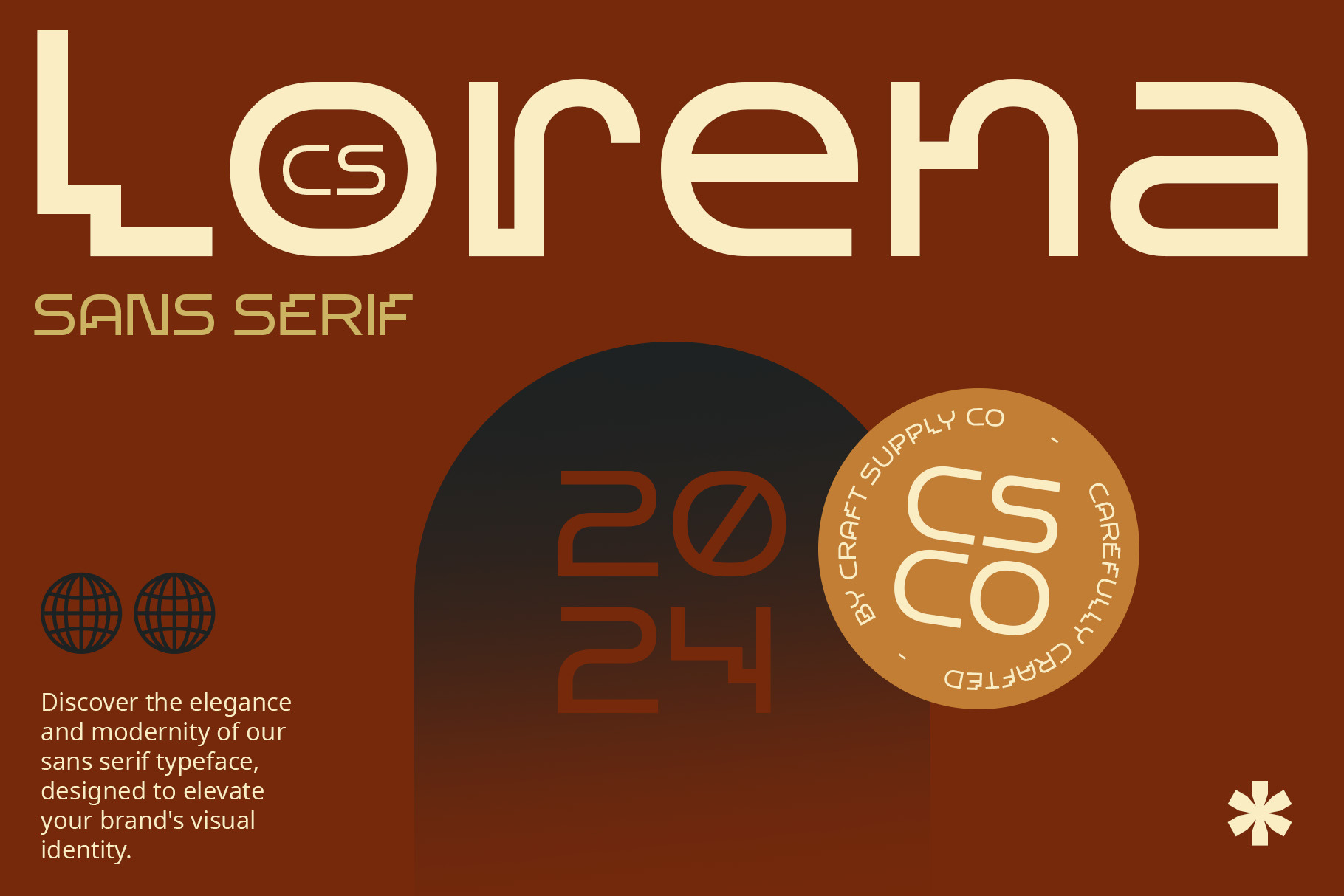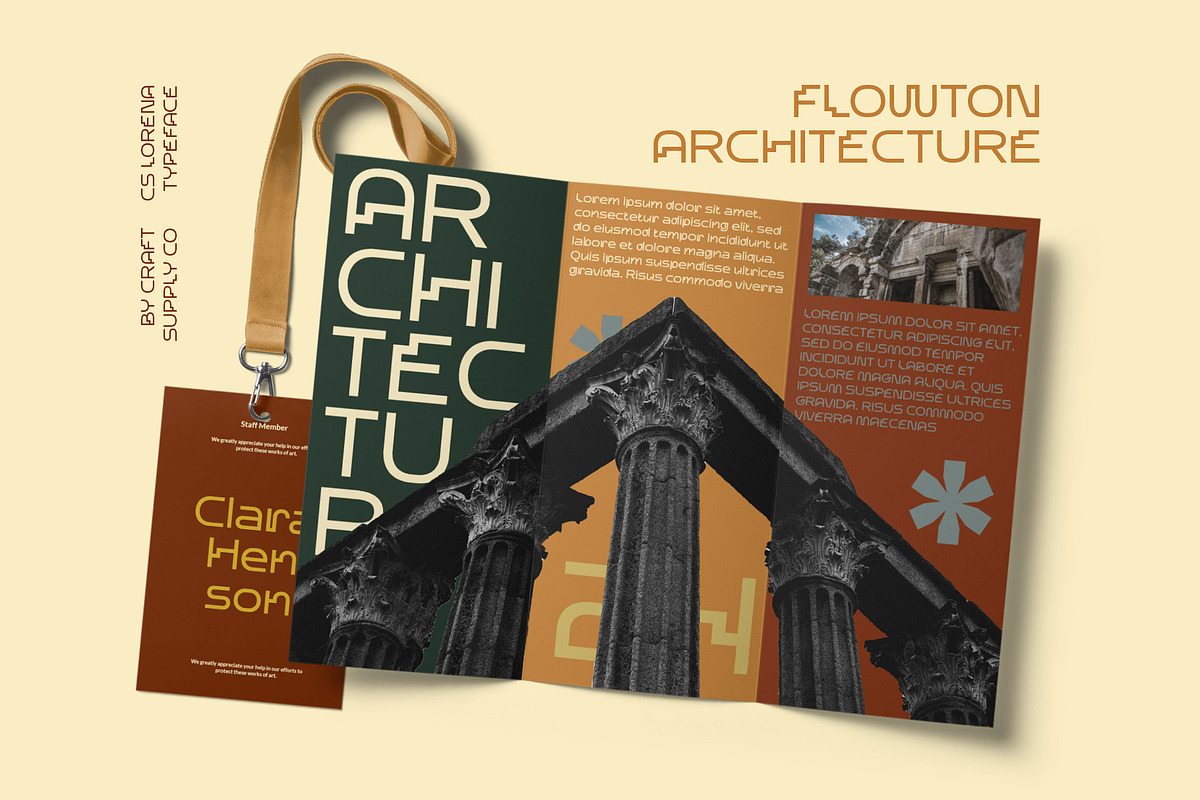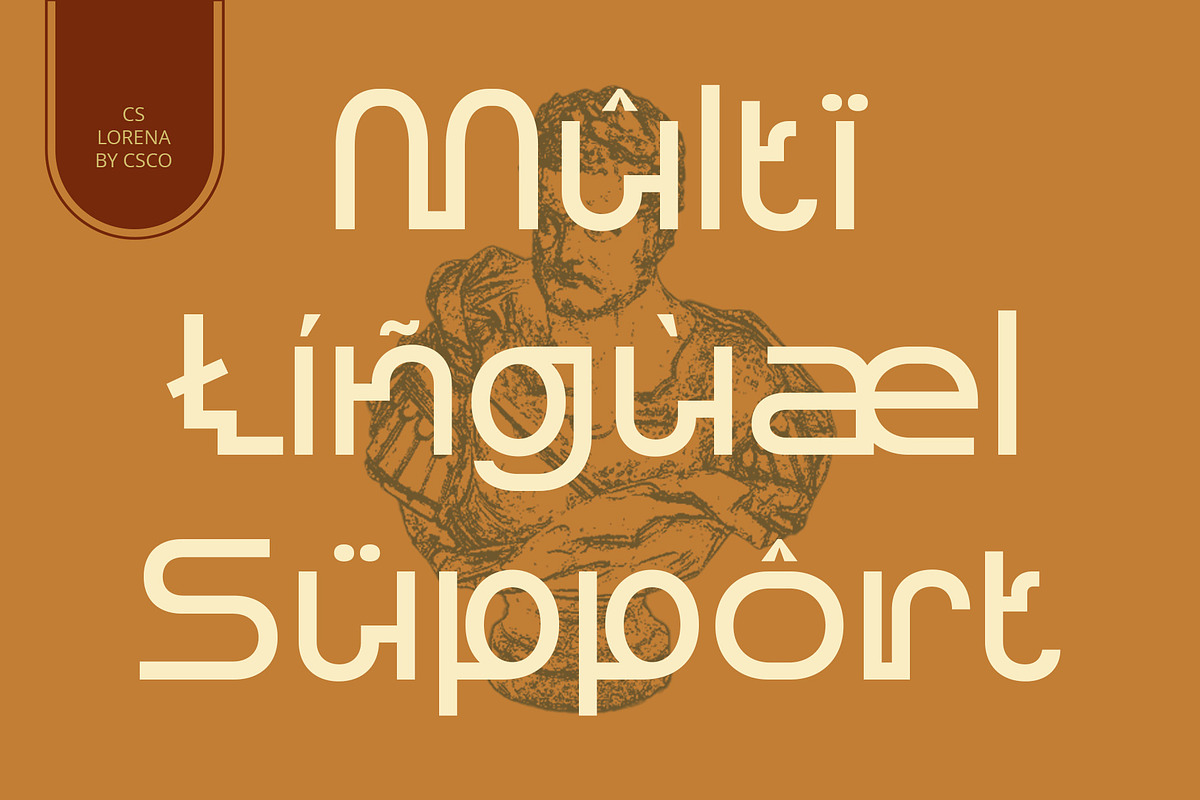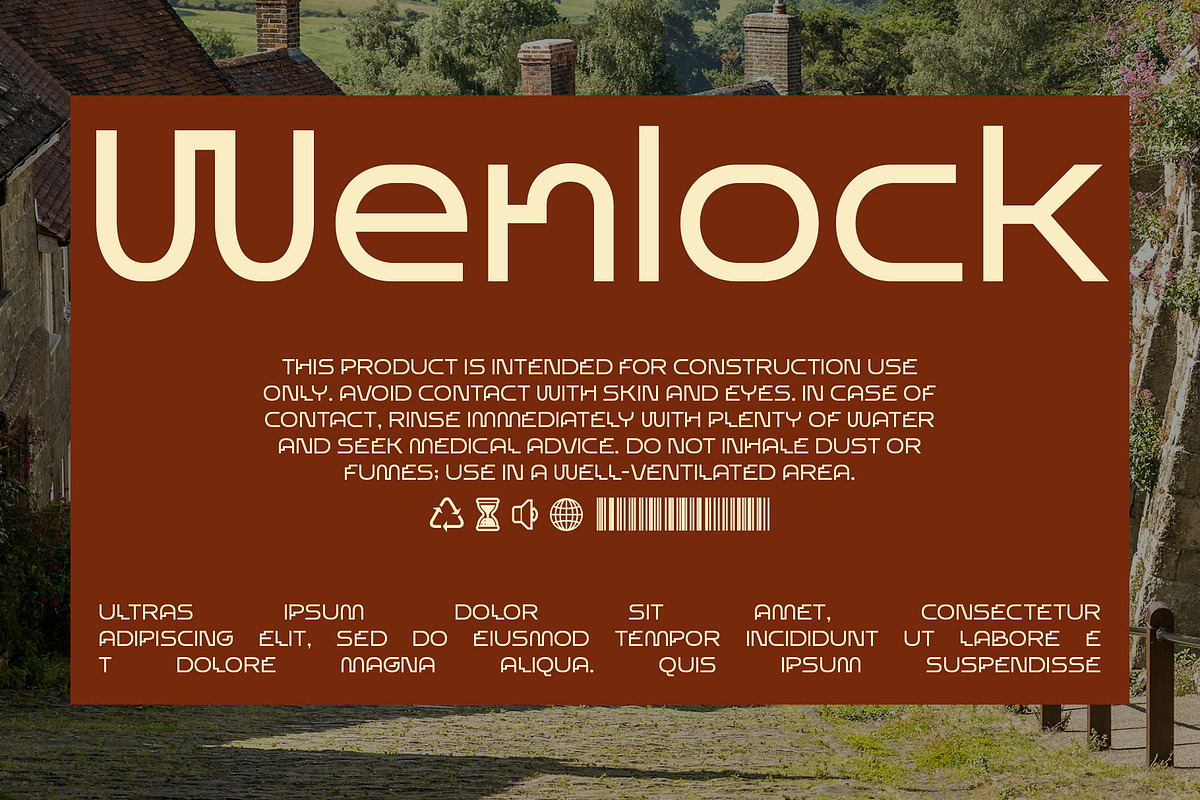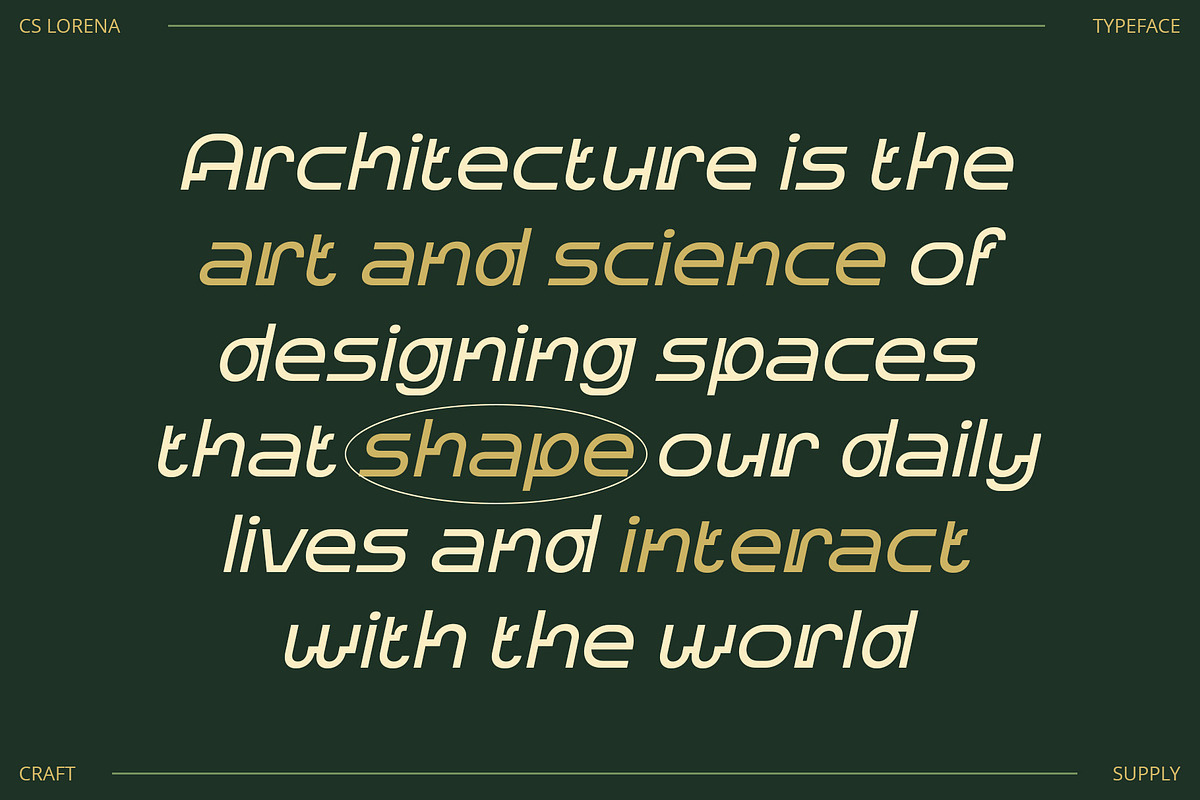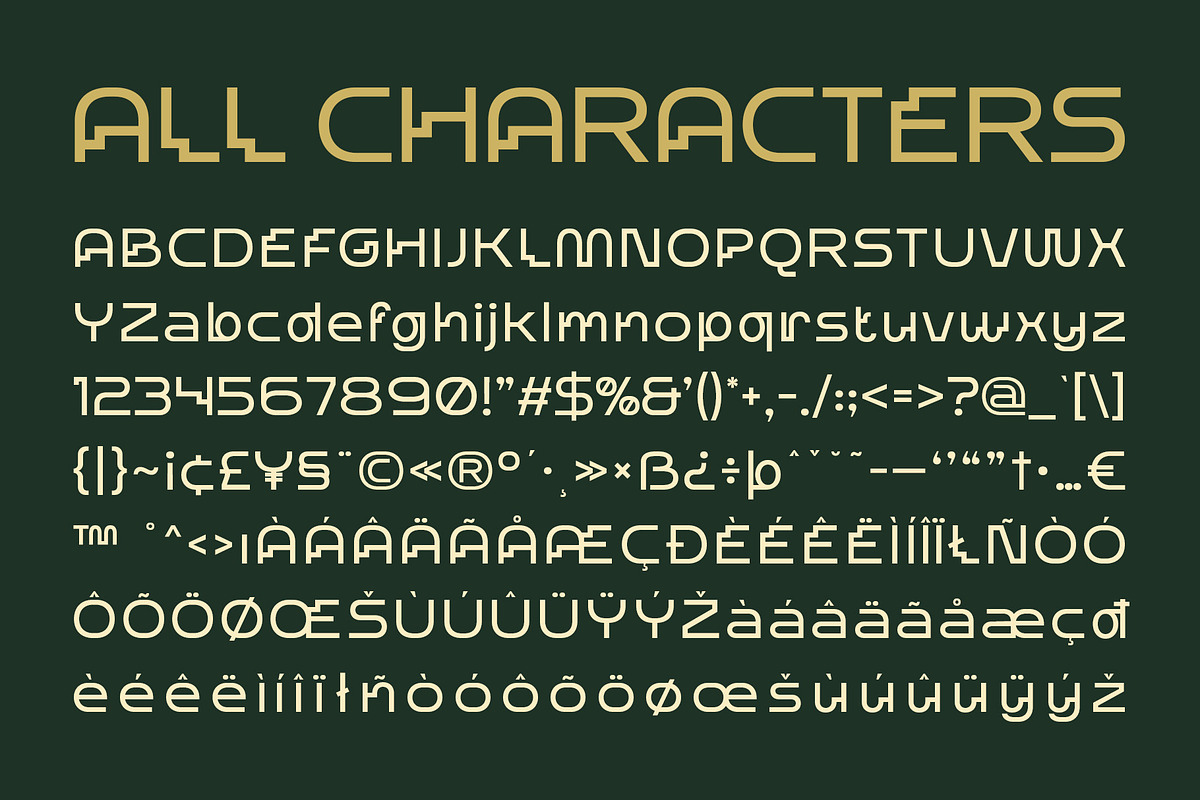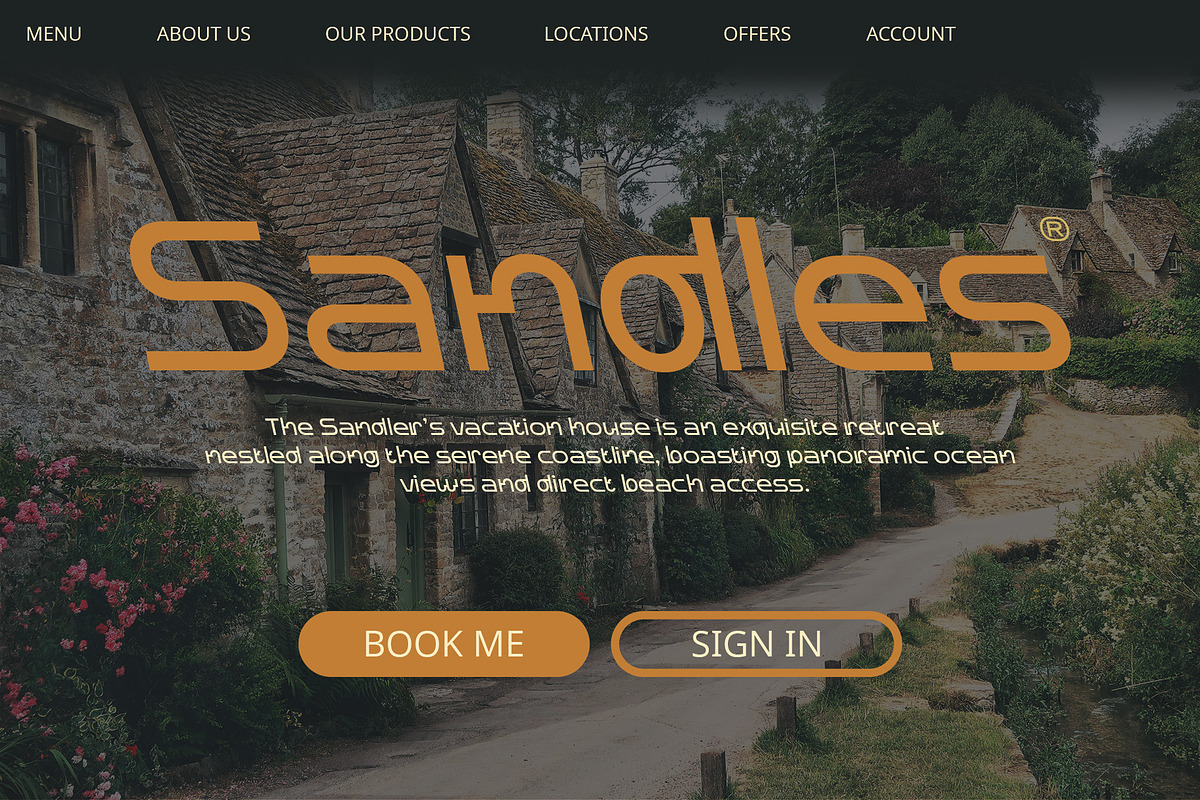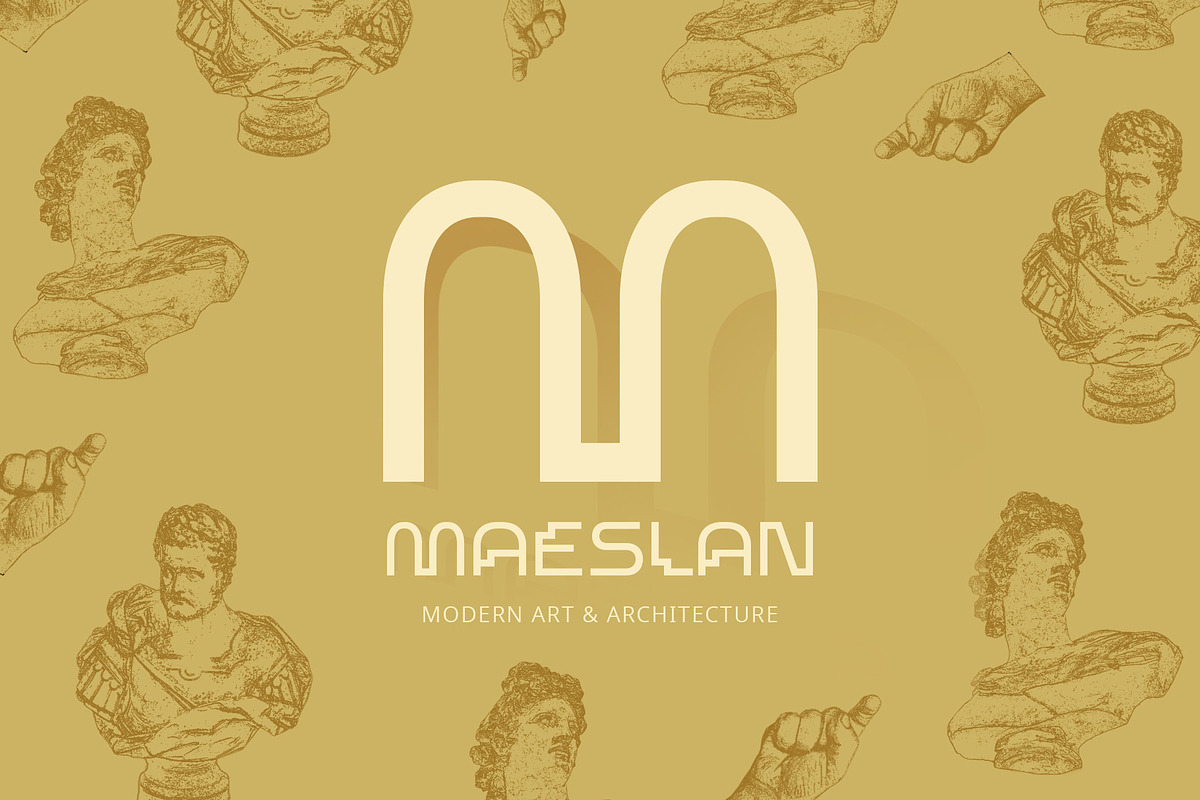
CS Lorena – Art Deco Font
CS Lorena – Art Deco Font: Elegant Geometric Sans Serif
Capture the Essence of Art Deco
CS Lorena is a modern sans serif font that embodies the elegance and luxury of the Art Deco era with its geometric shapes and clean lines. Inspired by the iconic style of the 1920s and 1930s, this font features sharp angles, striking decorative elements, and a clean, minimalist appearance that perfectly captures the essence of Art Deco design.
Geometric Elegance
The geometric shapes of CS Lorena evoke the geometric precision and sophistication typical of Art Deco aesthetics. Each character is meticulously crafted to maintain clarity and readability while exuding a sense of elegance and luxury, making it an ideal choice for designs that aim to showcase the visual richness of the Art Deco era.
Perfect for Elegant Designs
Ideal for branding, editorial layouts, and luxury packaging, CS Lorena excels in projects that require a clean and modern interpretation of Art Deco style. Its sharp angles and decorative elements add a touch of glamour and sophistication, ensuring your designs radiate elegance and timeless appeal.
- CS Lorena Regular
- CS Lorena Italic
- CS Lorena Reverse Italic